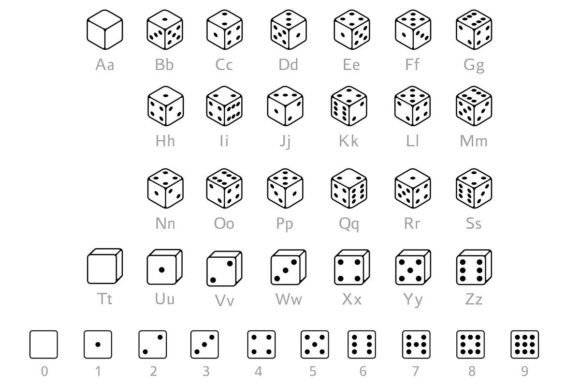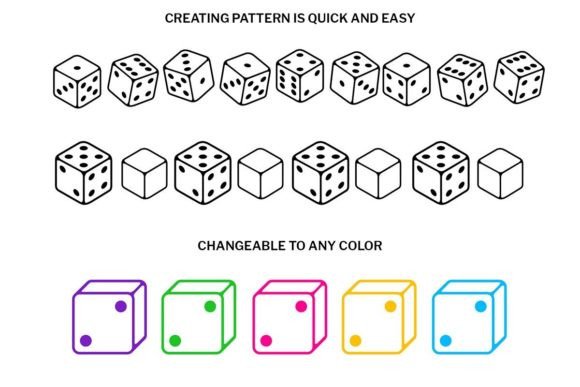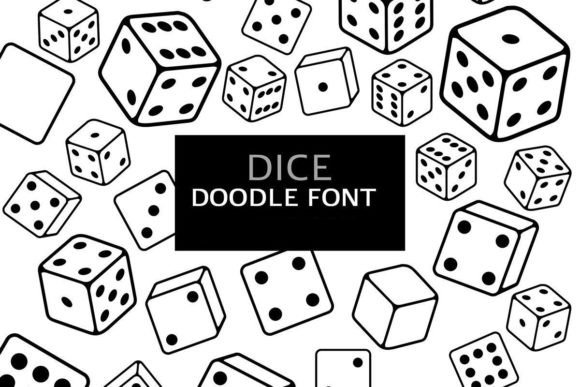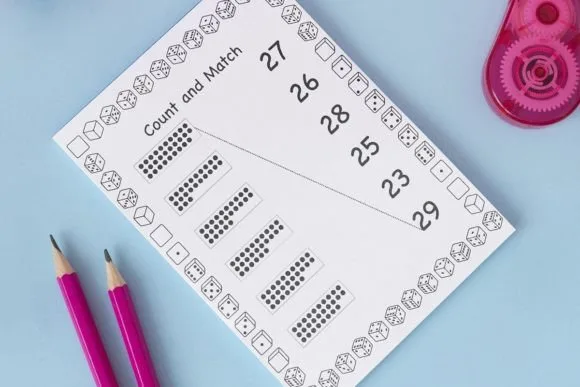
Dice Doodle Font
About Dice Doodle Font
The Dice Doodle font is a playful and charming dingbat font featuring various doodles of dice and related elements. With its cute and versatile designs, this font is perfect for adding a touch of fun and excitement to your creative projects.
The versatility of the Dice Doodle font allows it to be used in a wide range of applications. Whether you’re working on craft projects, designing game-themed graphics, creating planner layouts, journaling, or developing activity books, this font is sure to bring a playful twist to your work.
In craft projects, the Dice Doodle font can be used to create handmade cards, gift tags, or party decorations with a game-inspired theme. The doodles of dice, dice combinations, and game-related icons can serve as decorative elements, borders, or focal points, adding a touch of whimsy and entertainment to your crafts.
For graphic designs, the Dice Doodle font can be used to design posters, flyers, or social media graphics with a playful gaming theme. The dice icons and doodles can create a visually appealing and engaging design, making your creations stand out and evoke a sense of fun and anticipation.
In planners and diaries, the Dice Doodle font can be used to decorate pages, mark game nights or gaming-related events with dice icons, or create sections dedicated to tracking scores or recording game strategies. The cute doodles of dice can add a playful and interactive touch to your planning and journaling experience.
Activity books and puzzles can also benefit from the Dice Doodle font. The dice doodles can be used as puzzle pieces, game instructions, or decorative elements, making game-themed educational materials entertaining and visually appealing.
The Dice Doodle font is also suitable for game-related designs, such as board games, card games, or digital game interfaces. The dice icons and doodles can be incorporated into game graphics, UI elements, or as part of the game’s branding, enhancing the overall gaming experience.
With the Dice Doodle font, the possibilities are endless when it comes to incorporating a playful and cute dice theme into your creative projects. Let your imagination run wild and use the Dice Doodle font in your crafts, designs, planners, diaries, activity books, or any other project that celebrates the joy of games and dice.
In summary, the Dice Doodle font is a fun and cute dingbat font that adds a playful twist to your creative endeavors. Its versatility makes it suitable for a wide range of craft projects, designs, planners, diaries, activity books, and more. Embrace the fun and let the Dice Doodle font enhance your creations with a touch of gaming excitement. Get ready to roll the dice and bring joy and entertainment to all your projects!